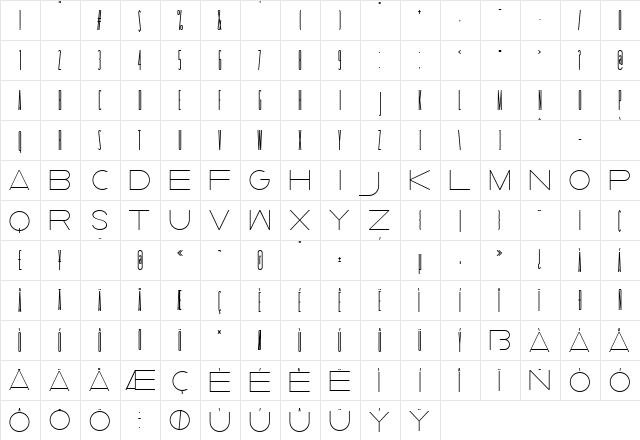
Taller Evolution Rev Regular
| Foundry | Studio Kmzero |
| Designer | Cosimo Lorenzo Pancini, Francesco Canovaro |
| Year | 2010 |
Design Context for Taller Evolution Rev Typeface
Taller Evolution Rev is a composed and adaptable typeface that performs quietly and consistently across a wide range of design contexts.